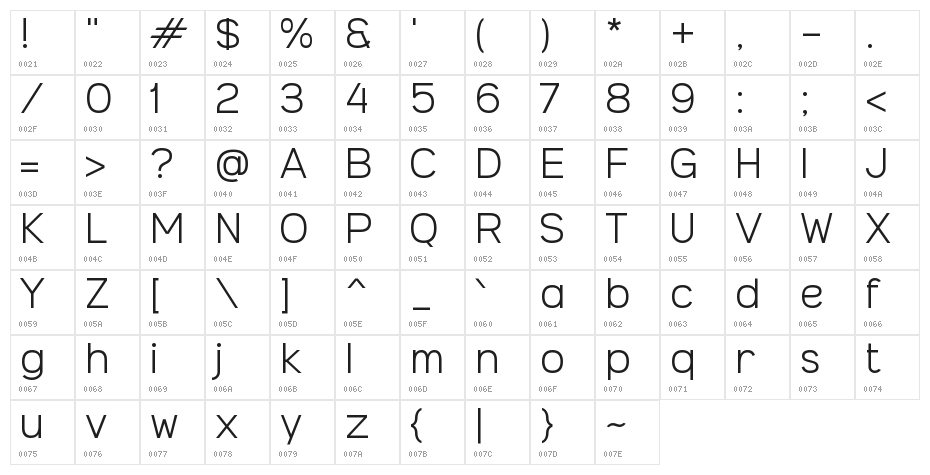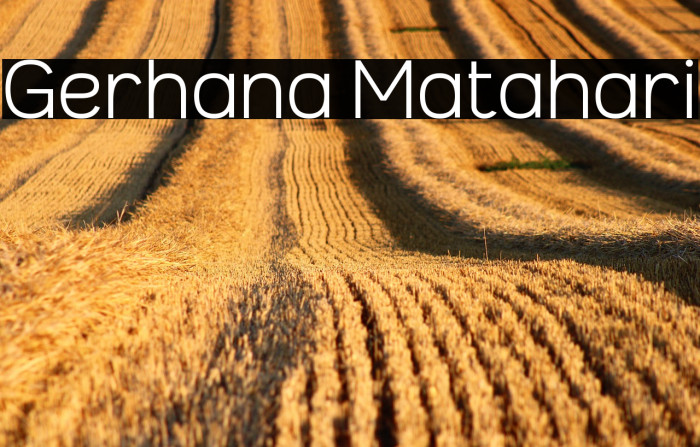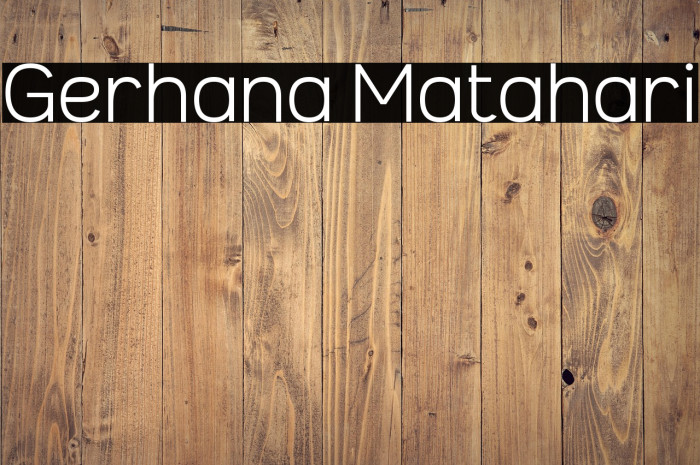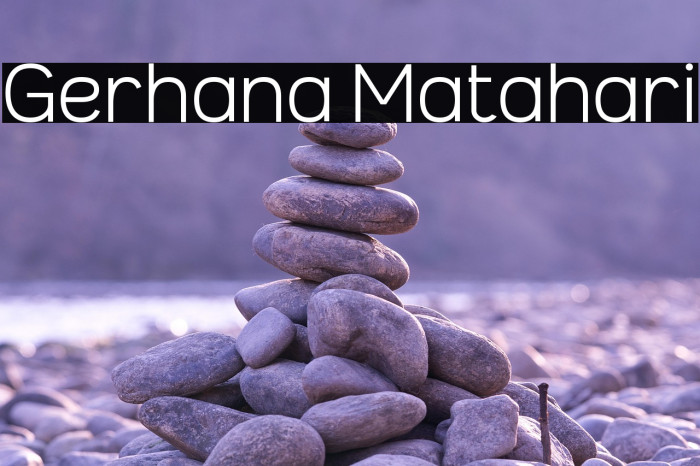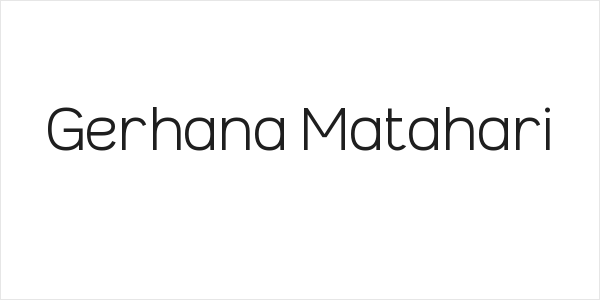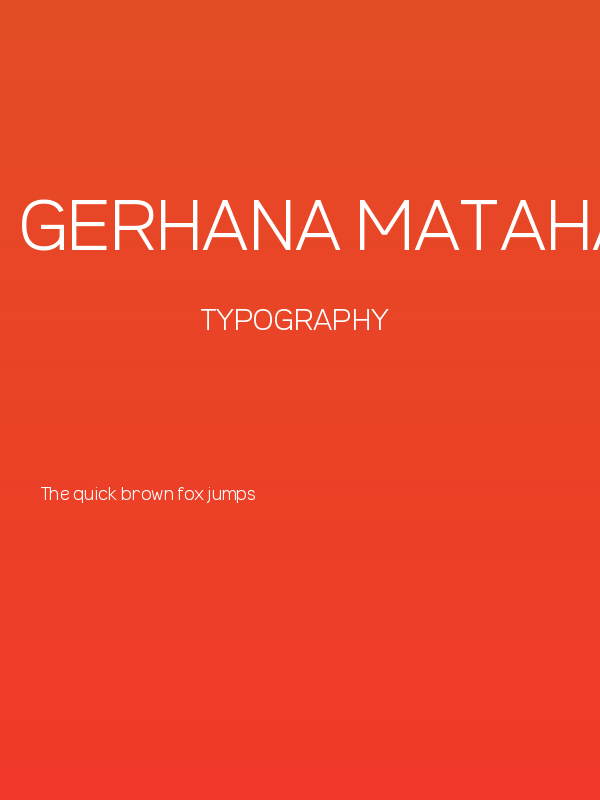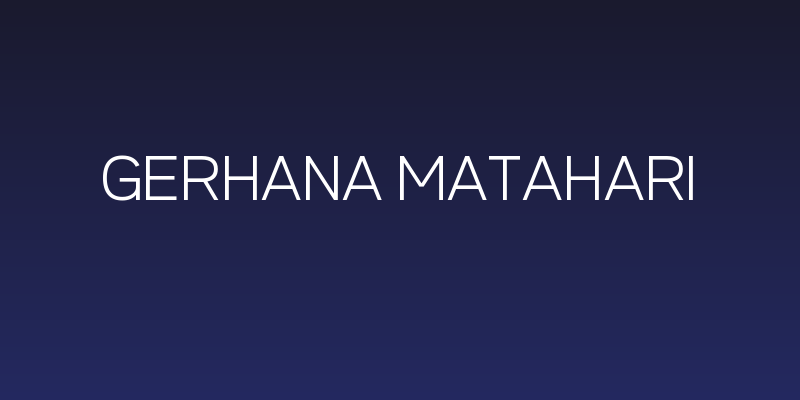
Gerhana Matahari Font
Gerhana Matahari Description
This font features a clean and modern sans-serif design, characterized by its simplicity and readability. The characters are evenly spaced with a consistent stroke width, providing a balanced and harmonious appearance. The uppercase letters are bold and assertive, while the lowercase letters maintain a friendly and approachable feel. The numerals are clear and distinct, making them easy to read in various contexts. Special characters are well-defined, adding versatility to the font's usage. Overall, this font exudes a contemporary and professional aesthetic, suitable for a wide range of applications.
| Proposed Projects | Ideal for corporate branding, website headers, digital content, and print media. |